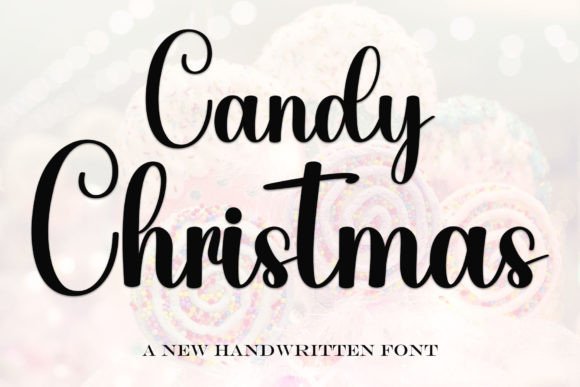
The Sweetest Font for Your Holiday Designs: Candy Christmas
I still remember the design project that led me to fall in love with the Candy Christmas font. I was working on a festive holiday card for a client, and I was struggling to find the perfect font to capture the essence of the season. The design needed to be elegant, yet playful; sophisticated, yet approachable. That’s when I stumbled upon Candy Christmas, a beautiful handwritten font that instantly won my heart.
Here’s what I love about Candy Christmas:
• ✨ Elegant and refined, yet approachable and friendly
• ✅ Incredibly distinct and timeless style
• 💕 Perfect for holiday designs, but also versatile enough for other projects
• 🎉 Great for titles, headings, and short paragraphs
And, like any font, it’s not perfect. A few quirks to keep in mind:
• 🤔 Some letters may not work well in all combinations (e.g., certain ligatures)
• ⚠️ Limited availability of stylistic alternates (but still plenty to work with)
The Story Behind Candy Christmas
Candy Christmas was designed by a talented typographer who wanted to create a font that captured the magic of the holiday season. With its elegant touch and timeless style, Candy Christmas is the perfect choice for designers, crafters, and creative hobbyists looking to add a touch of festive flair to their designs.
Is Candy Christmas a monoline font? No, Candy Christmas has a subtle variation in line width, giving it a more elegant and refined feel.